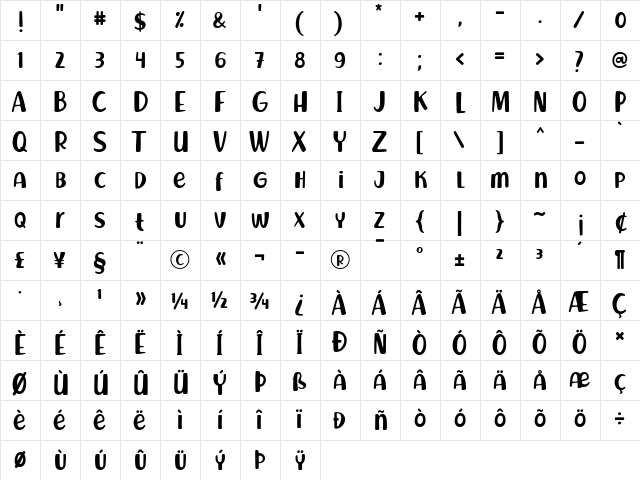
Richela Kids Regular
| Foundry | 7NTypes |
| Designer | Keithzo; Situjuh Nazara |
Design Context for Richela Kids Typeface
Richela Kids trades formality for fun, with bouncy, characterful letterforms that bring warmth and energy to any project.
Font Pairing: Pairs well with a rounded or humanist sans for body copy, maintaining the friendly tone without relying on Richela Kids to carry extended reading.
Pro Tip: Avoid using Richela Kids for long passages of text — it works best for headlines, labels, and short calls to action.